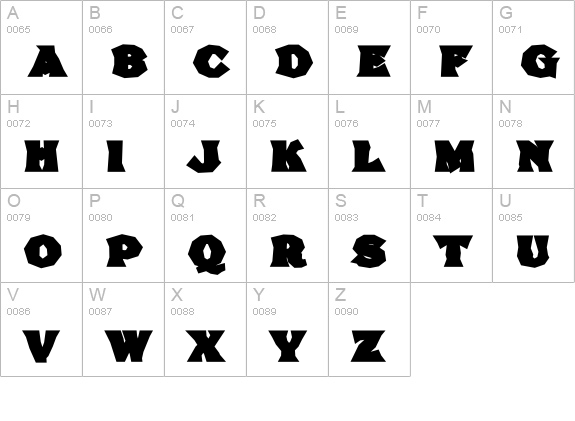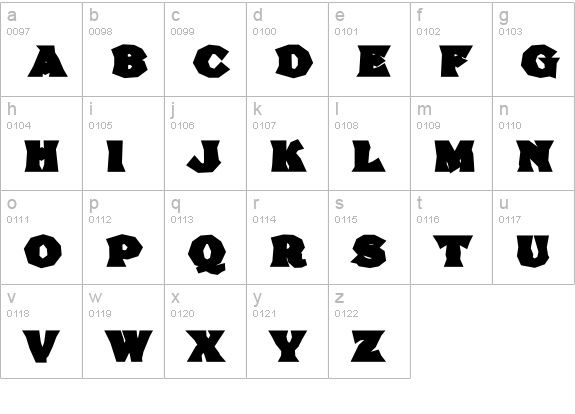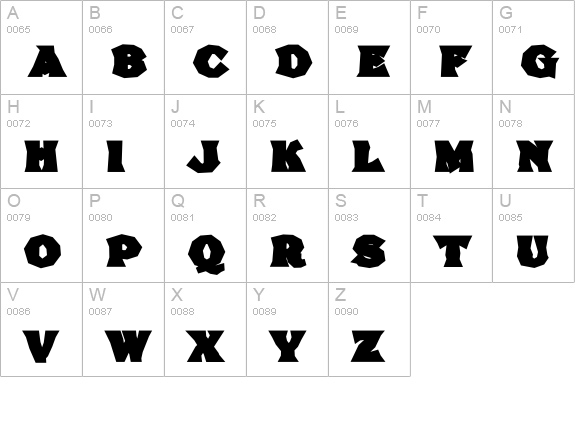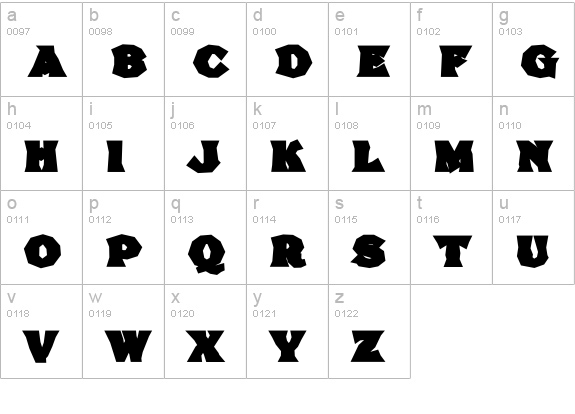
FHA Brokn Gothic BustdD NC Font Details
The FHA Brokn Gothic BustdD NC font is a stunning display font that effortlessly combines a sense of elegance with a touch of ruggedness. With its broken and gothic style, this font exudes a unique charm that is perfect for projects requiring a bold and edgy aesthetic. Designed with meticulous attention to detail, the FHA Brokn Gothic BustdD NC font features beautifully crafted letterforms that are both captivating and versatile. Its intricate and distressed appearance adds a touch of vintage appeal, making it an ideal choice for various design projects, including logos, headlines, posters, and more. One of the most remarkable aspects of this font is that it is available for free download at FontsMarket.com. This means that designers, creatives, and enthusiasts alike can access this exceptional font without any cost. Whether you are a professional designer or simply someone looking to add a unique touch to your personal projects, the FHA Brokn Gothic BustdD NC font is an excellent choice. By incorporating this font into your designs, you can effortlessly create a distinct and memorable visual identity. Its bold and captivating presence will grab attention and leave a lasting impression on viewers. Whether you are aiming for a grunge-inspired look, a vintage theme, or a modern twist on traditional typography, the FHA Brokn Gothic BustdD NC font offers endless possibilities for creative expression. So, if you are looking for a free font that combines elegance, uniqueness, and a touch of ruggedness, look no further than the FHA Brokn Gothic BustdD NC font. Download it now from FontsMarket.com and unleash your creativity with this exceptional typeface.